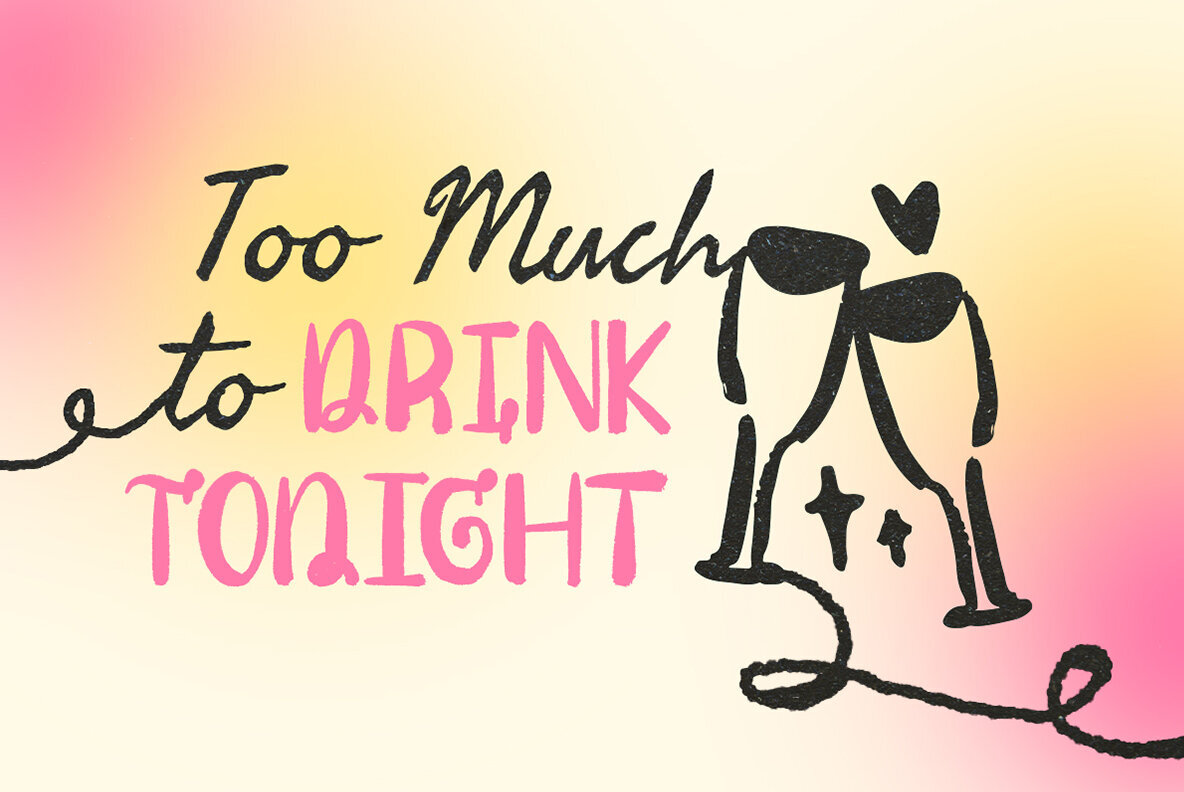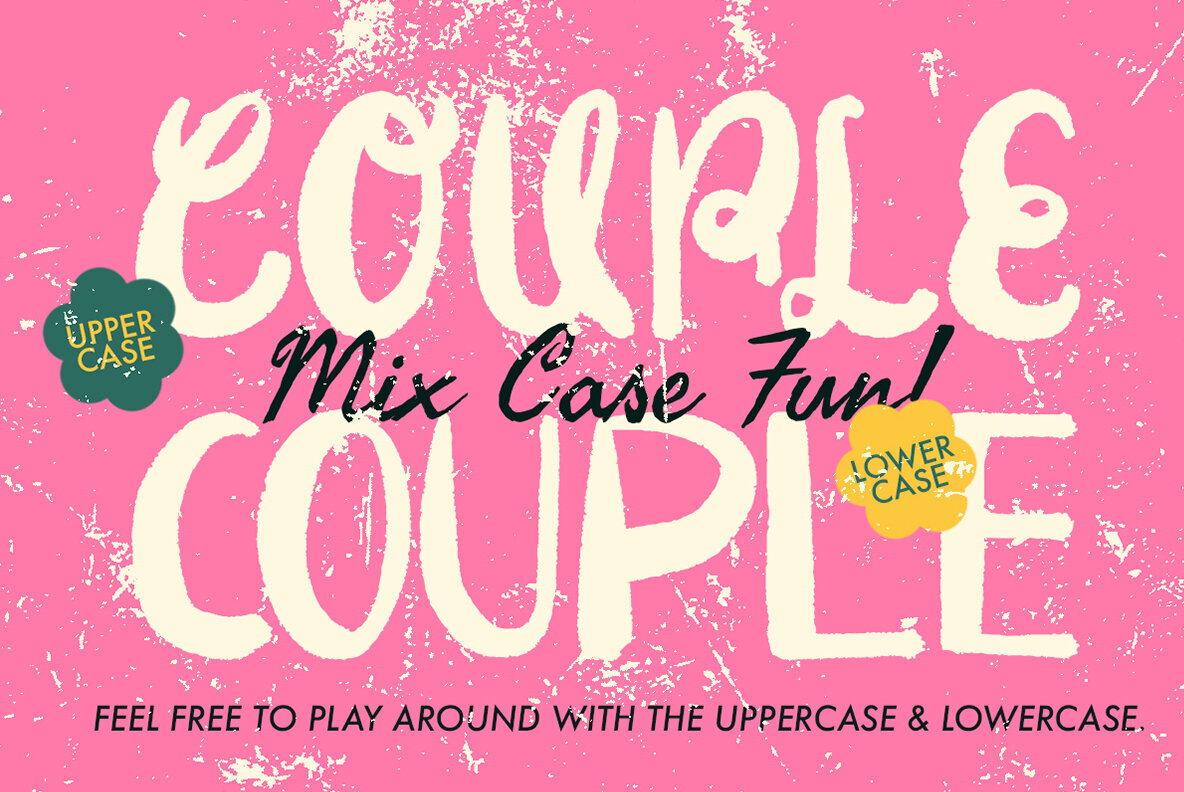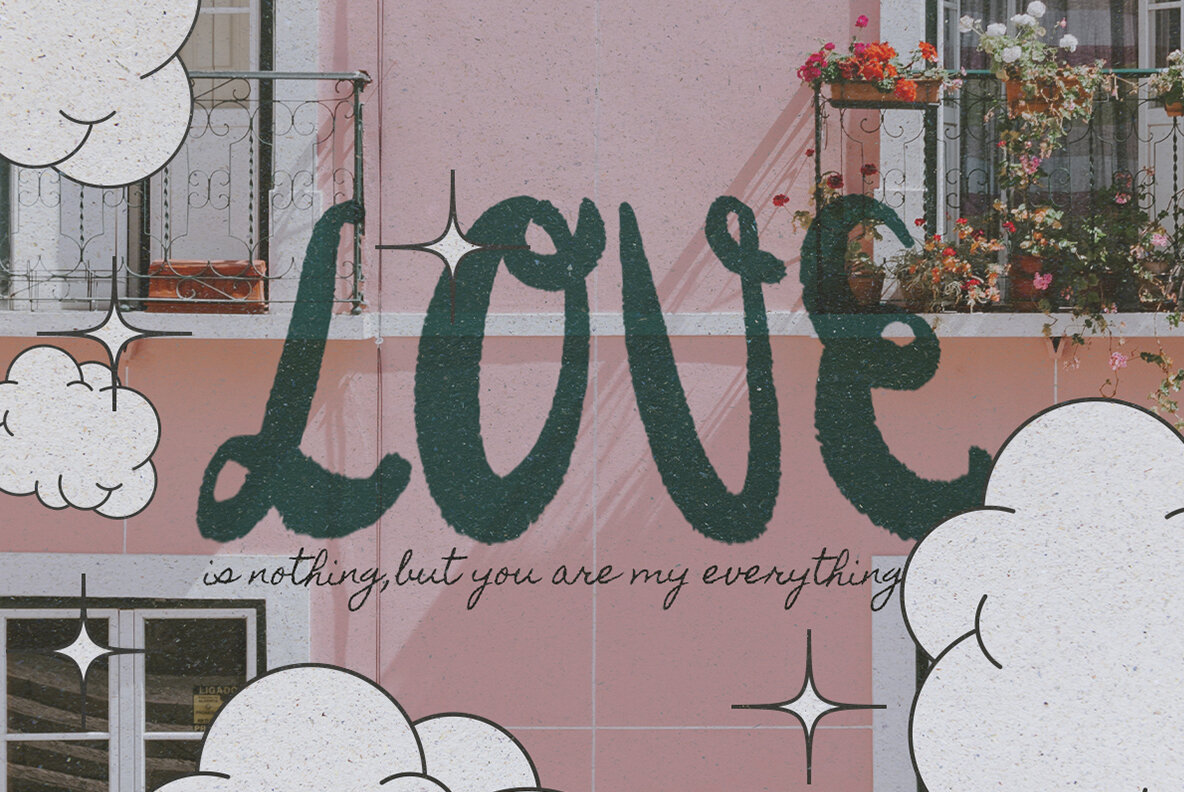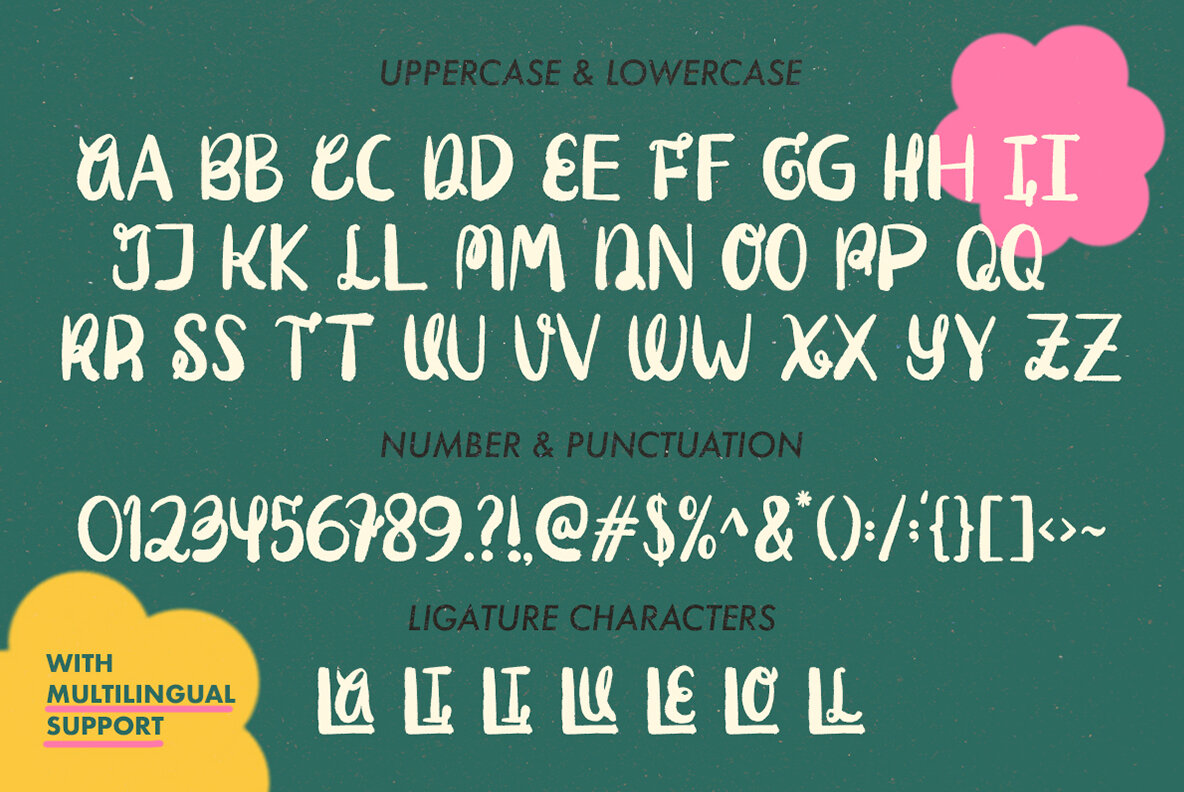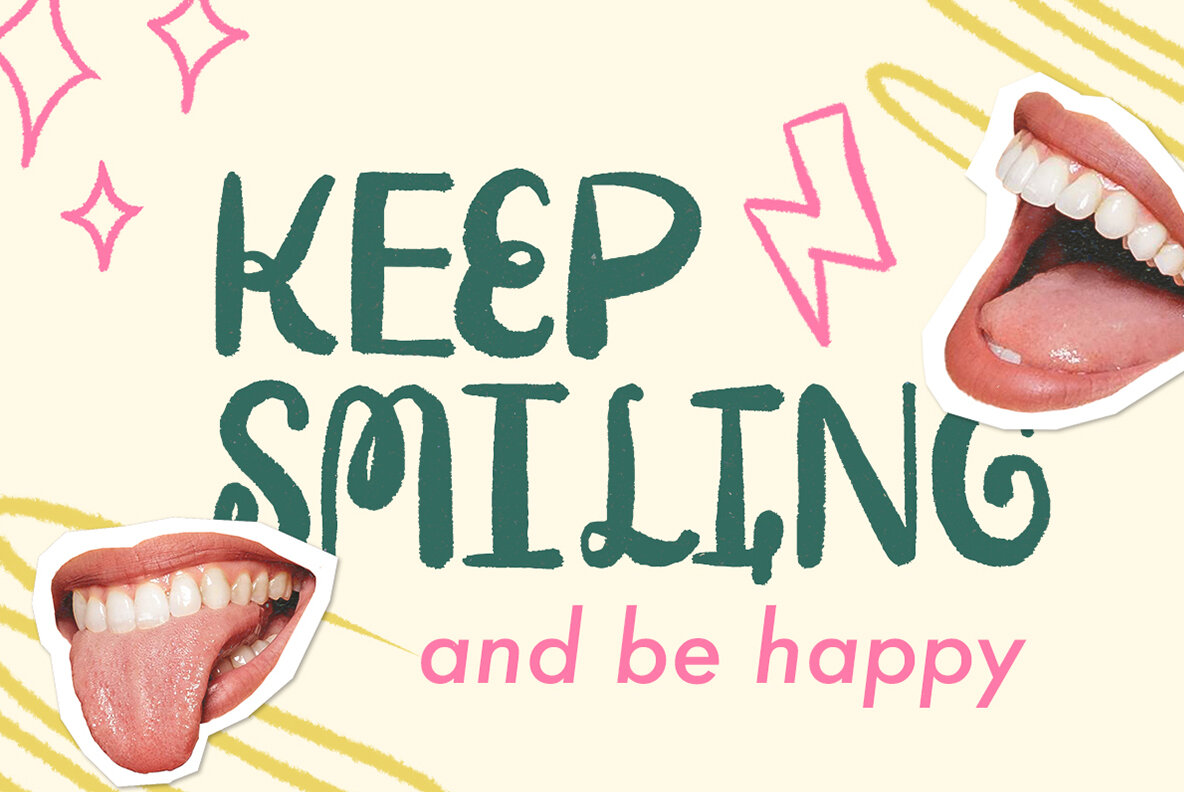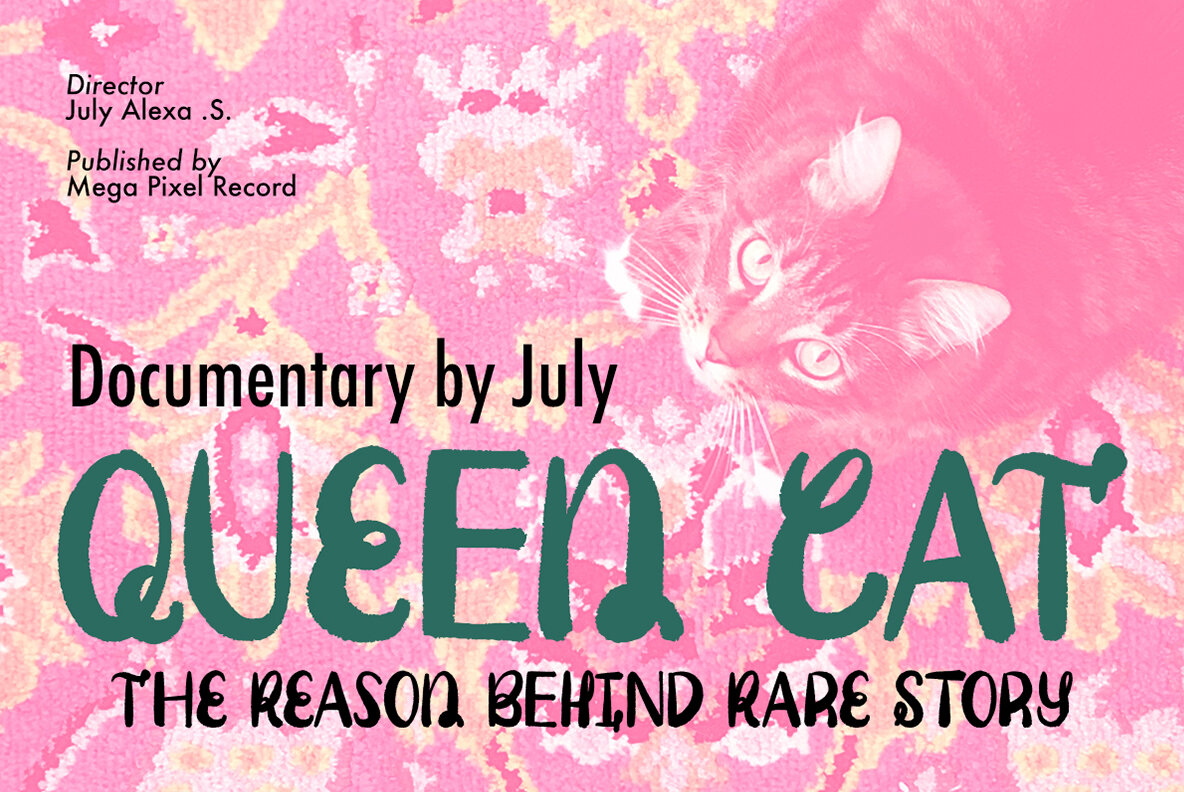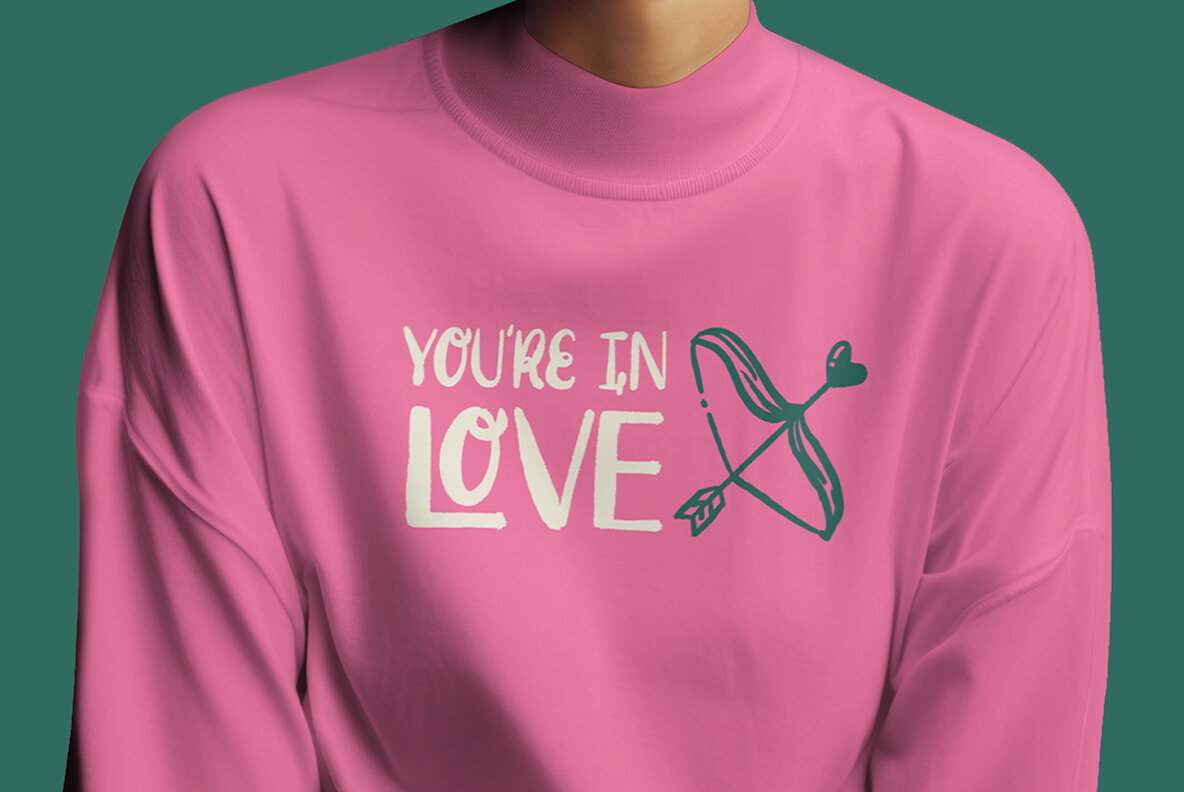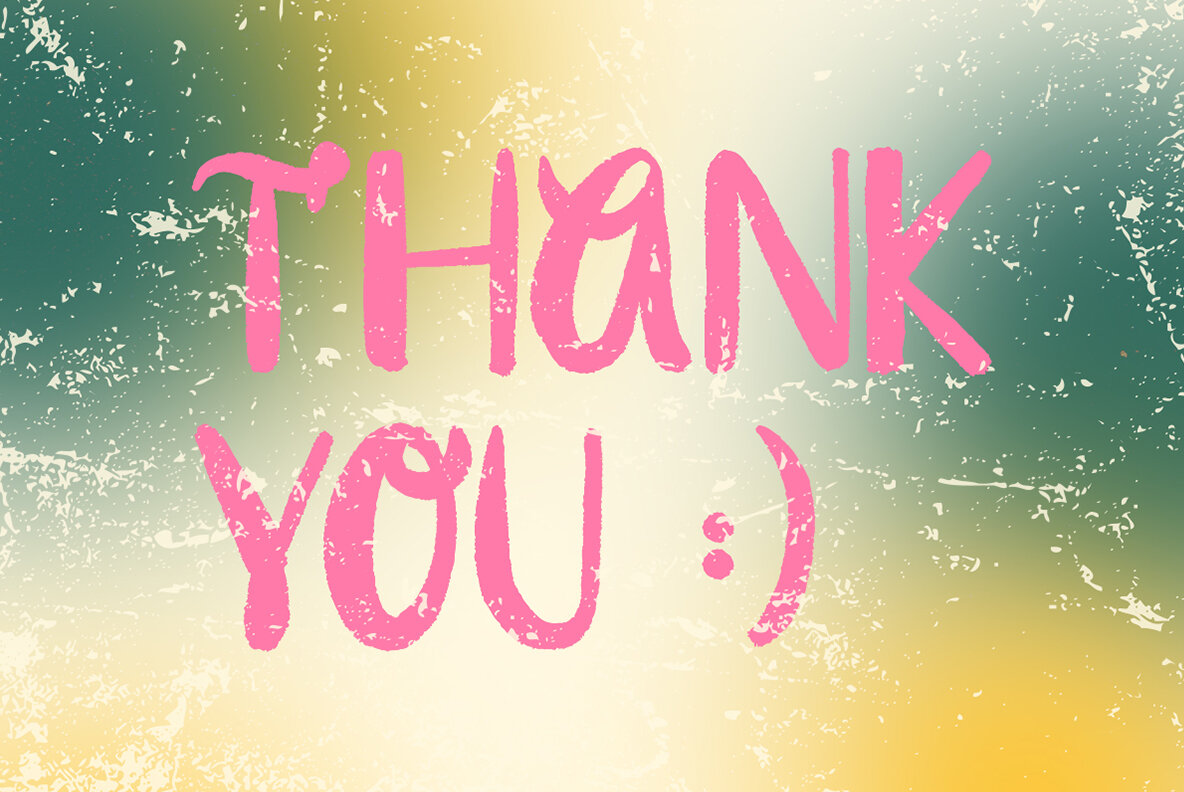
Mymine Font
SL Mymine Regular
Nostalgic for 2000s texting? Mixing uppercase and lowercase was the cool thing to do. Wasn't it fun? Introducing Mymine, the embodiment of that vibe. Organic handwritten display fonts that give you the freedom to play without restrictions. Express yourself without the worry of appearing tacky—still catchy! What's inside?